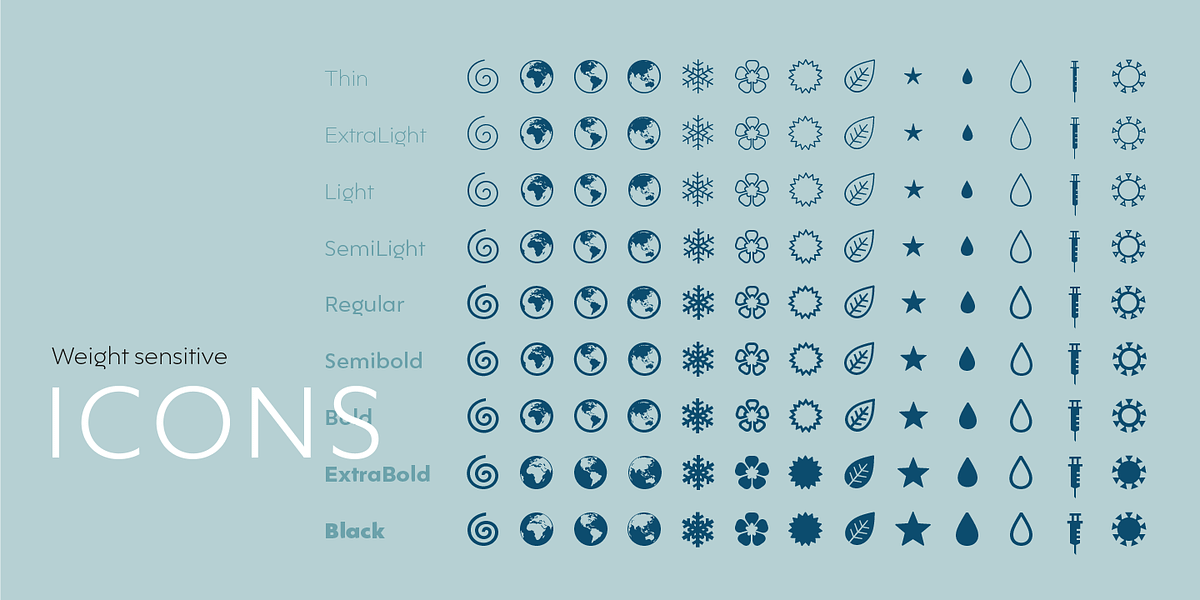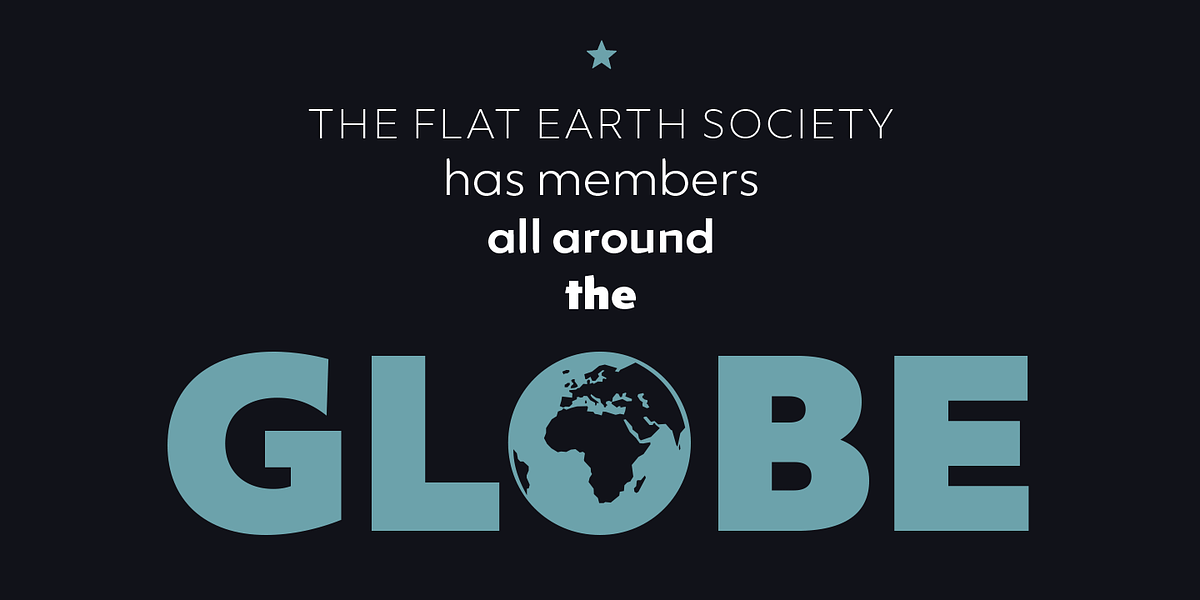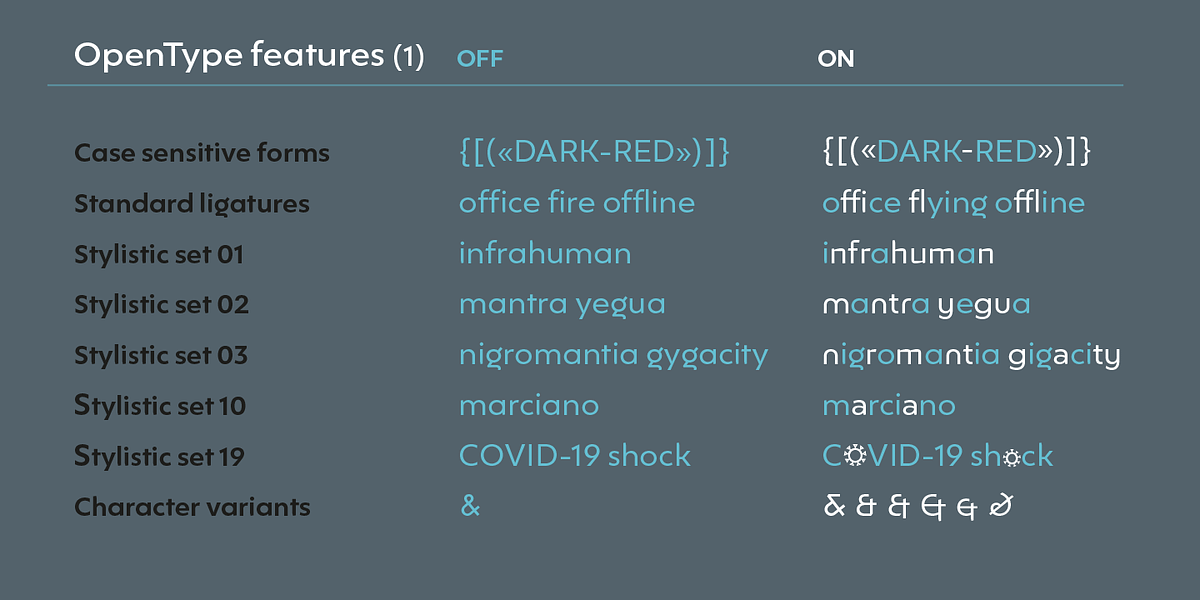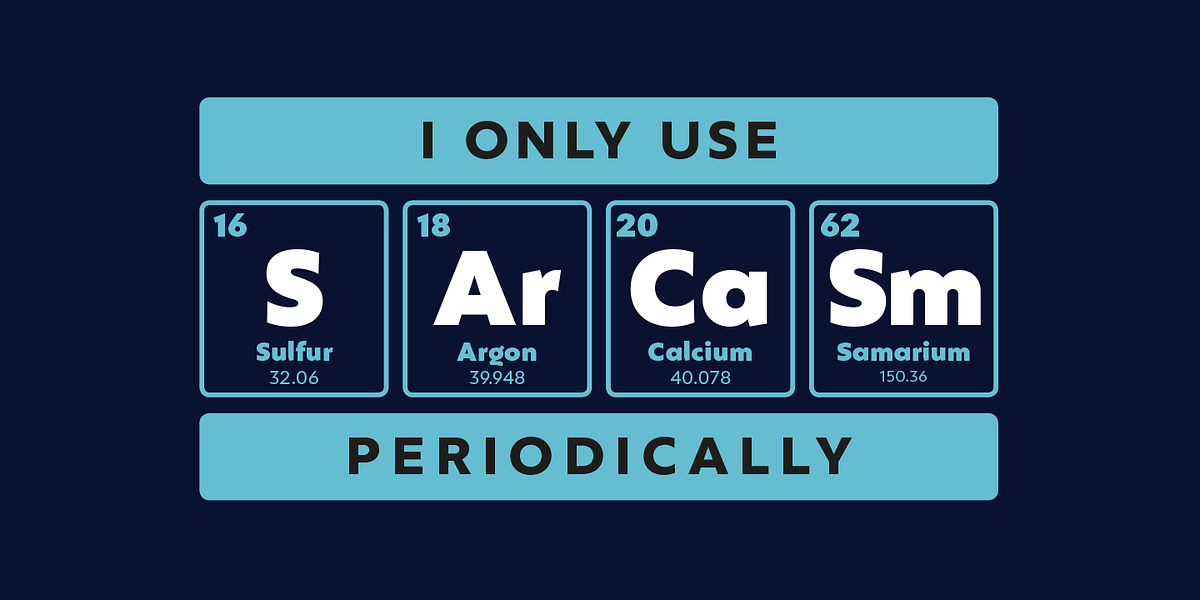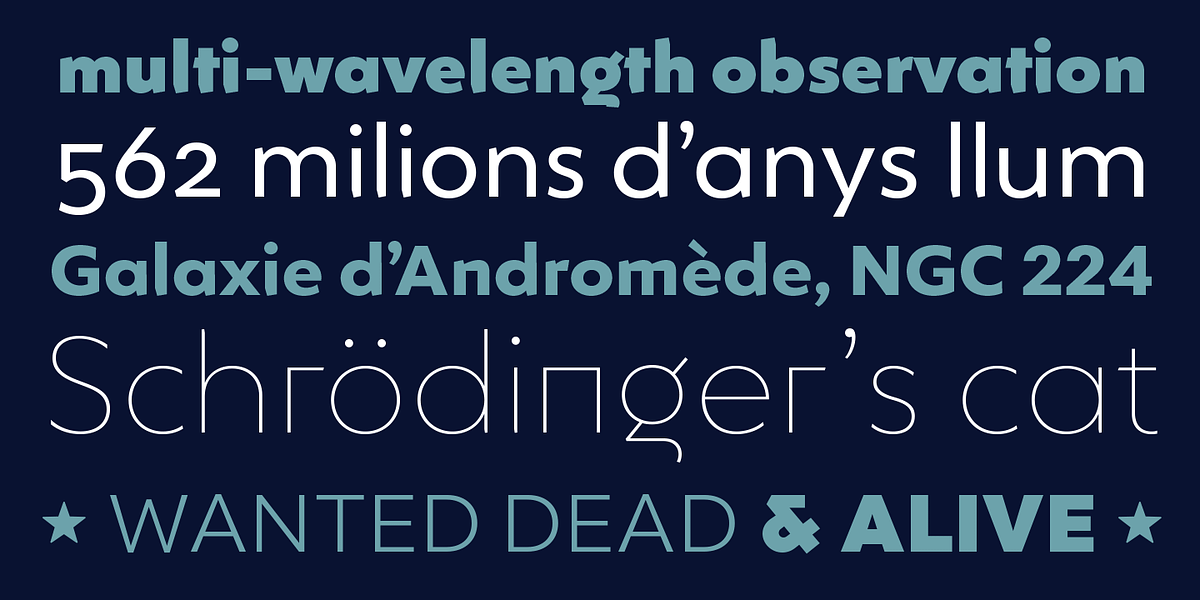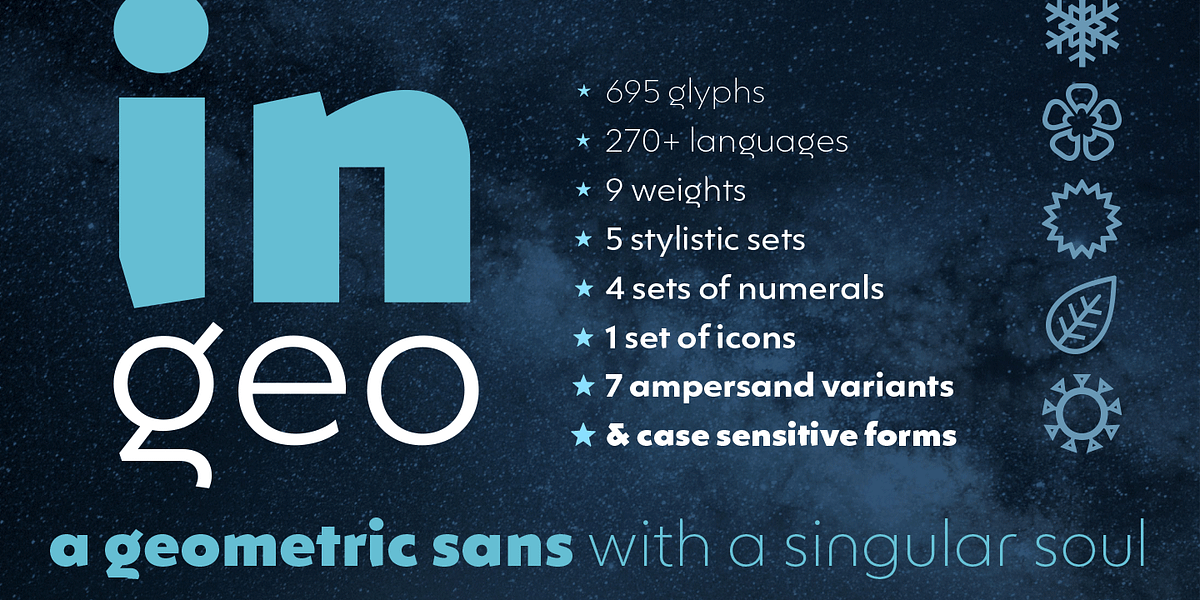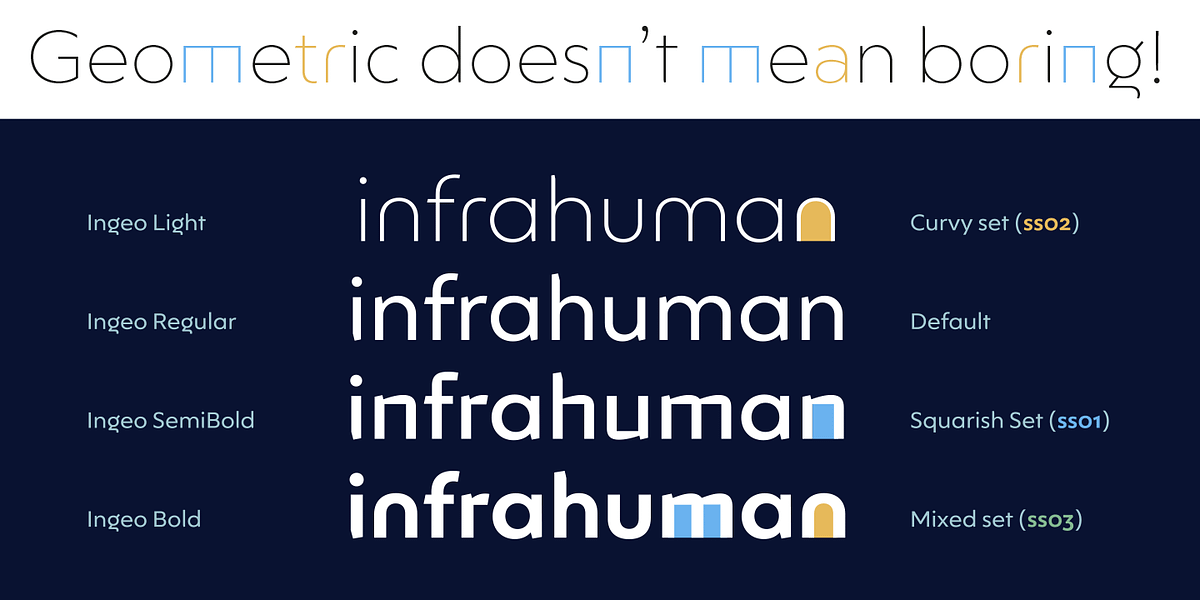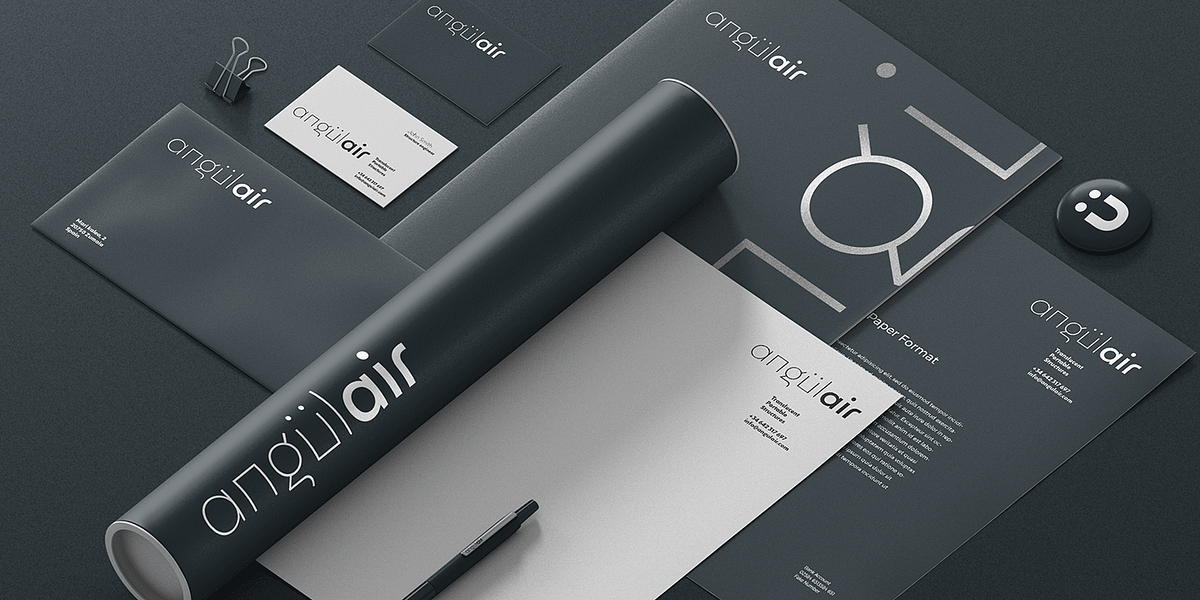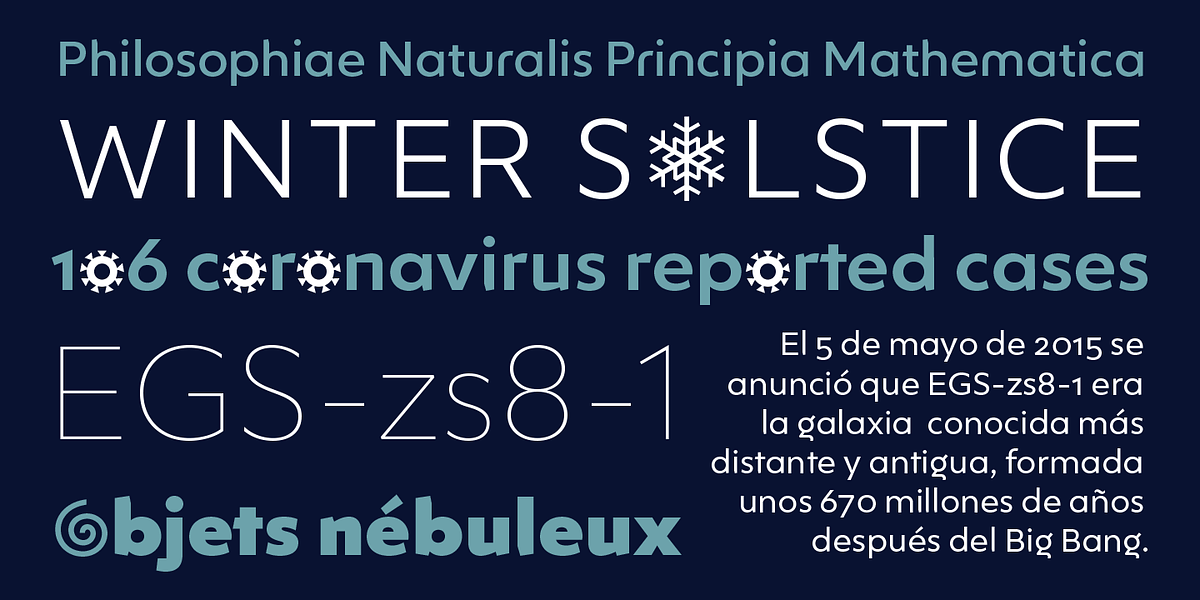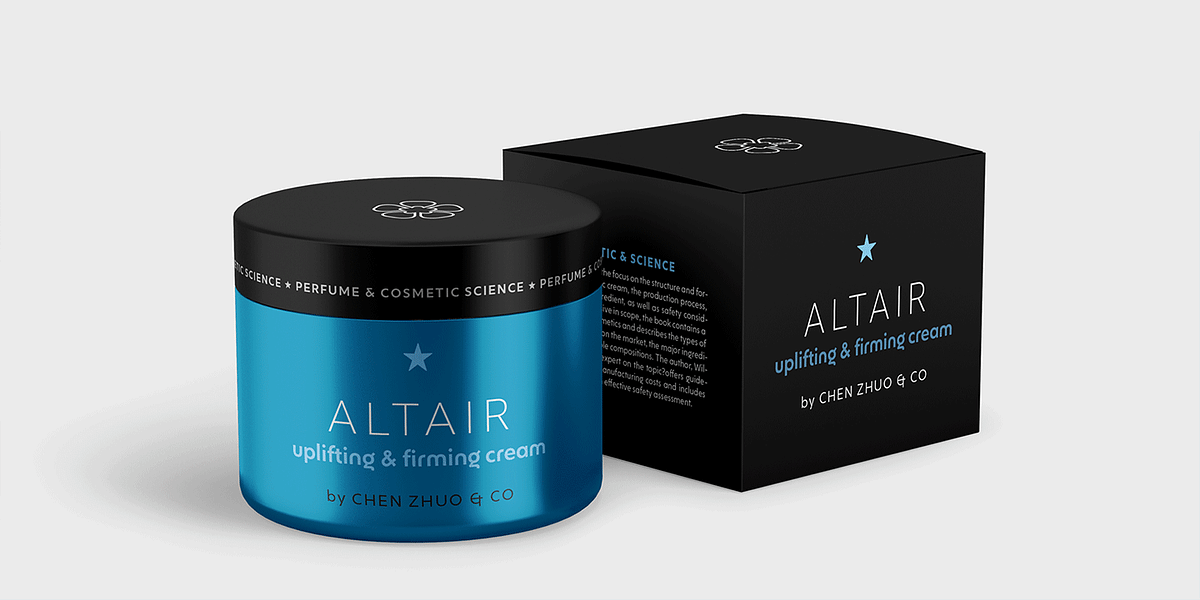
Ingeo
Ingeo is a geometric sans-serif font that incorporates subtle calligraphic elements. Its letterforms are based on geometric shapes, but the contours around them are modulated in a way that evokes handwriting. This blend of geometry and calligraphy gives Ingeo a unique and modern feel. It comes with 695 glyphs, including 5 stylistic sets, science-related icons, and various ampersand designs.